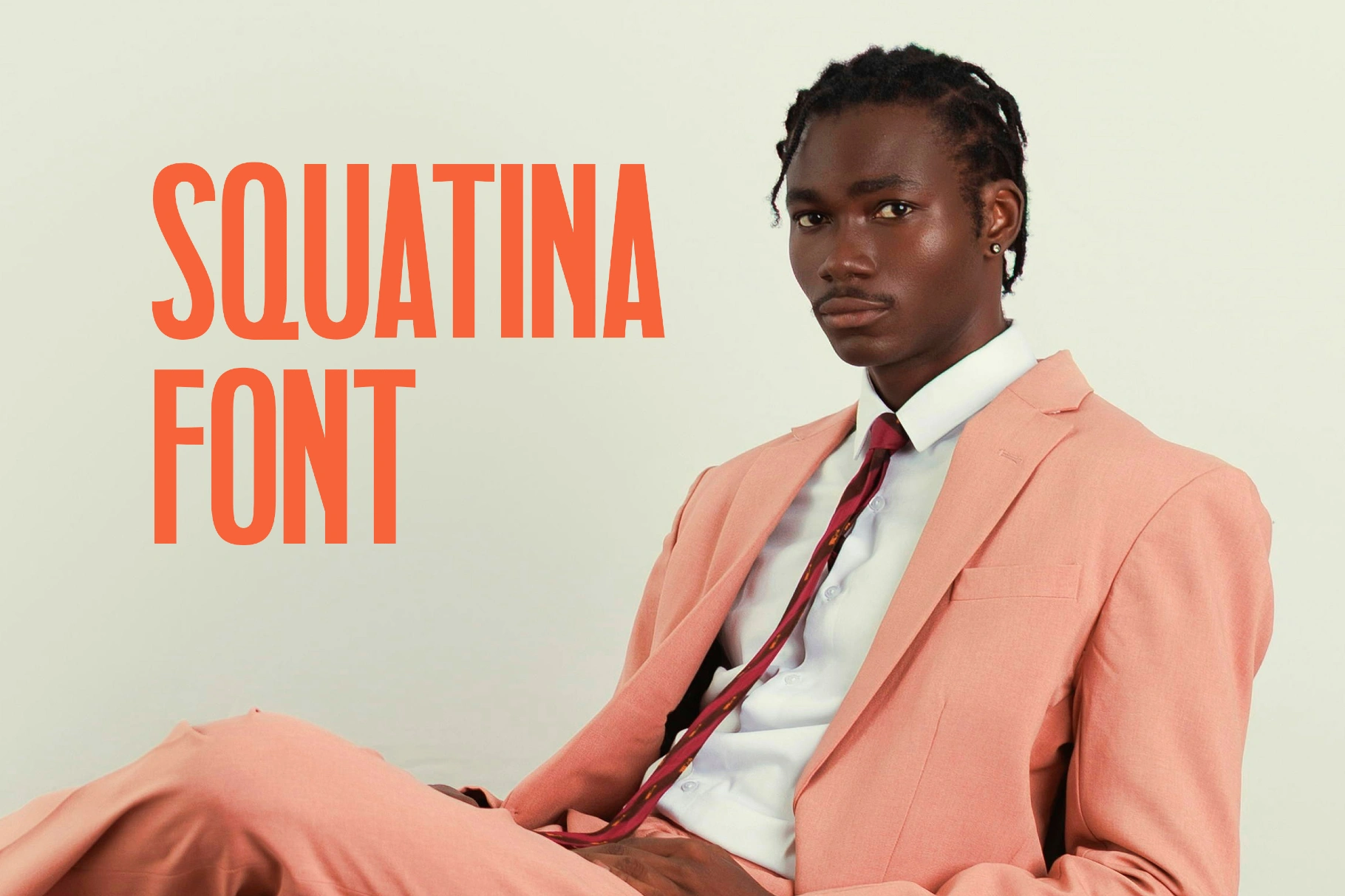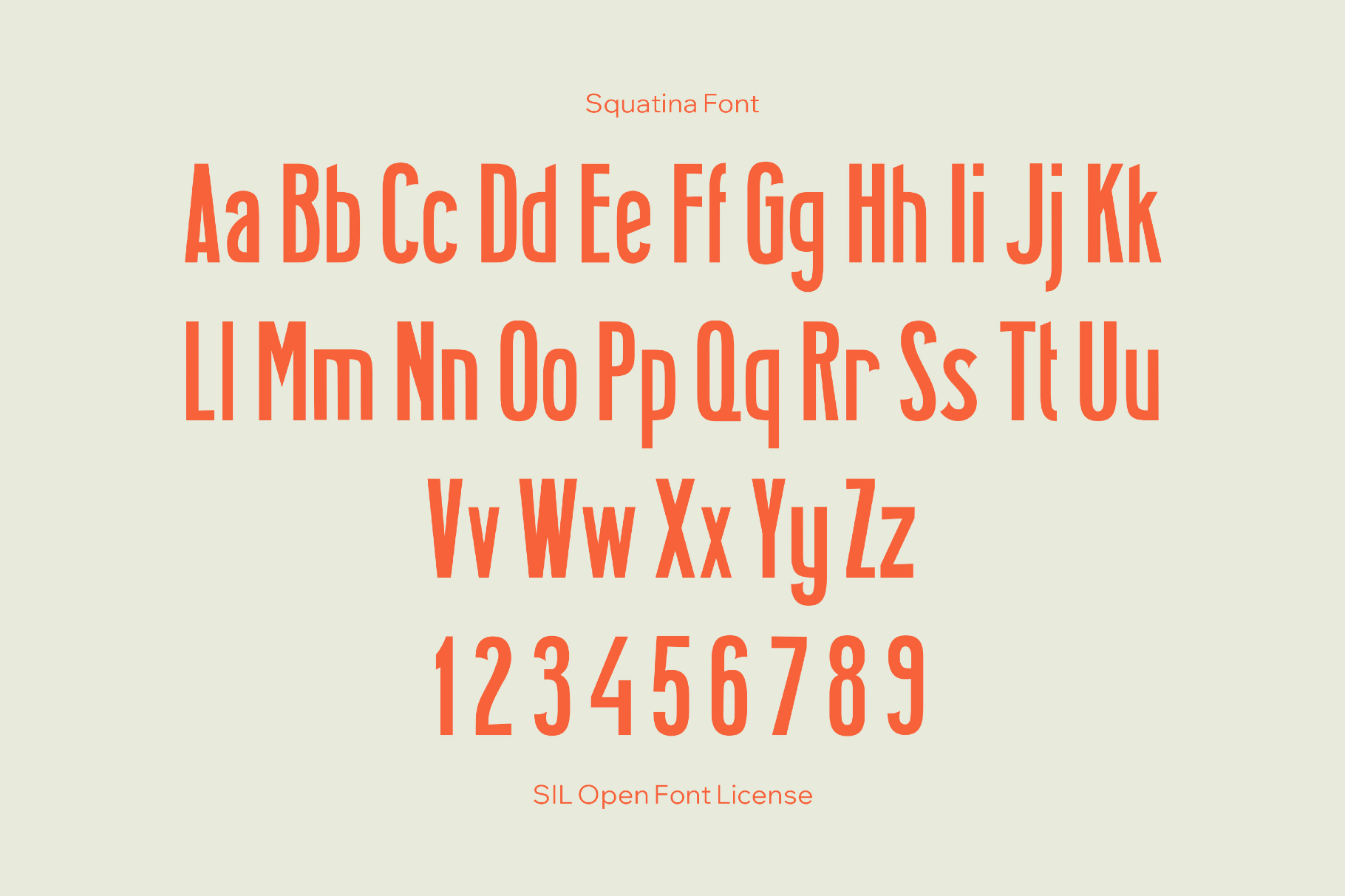
Squatina Font
Squatina is an all-caps display font with chunky, rounded geometry and a playful, slightly aquatic bounce that looks like 1970s cartoon titling and boardwalk signage. Its clean characters make it a good choice for logo wordmarks, sticker-style graphics, summer event posters, book covers, t-shirt lettering, apparel prints, packaging badges, and social headers.
• Uppercase and lowercase letters.
• Basic punctuation.
• Some international characters.